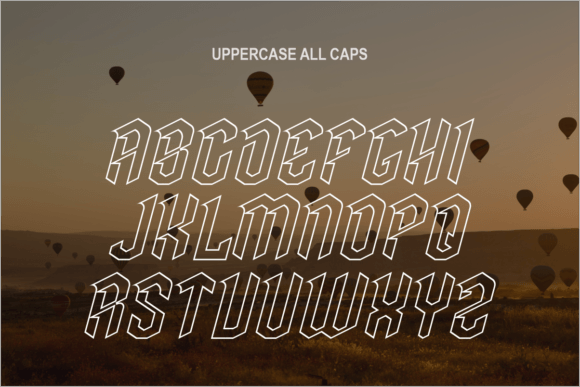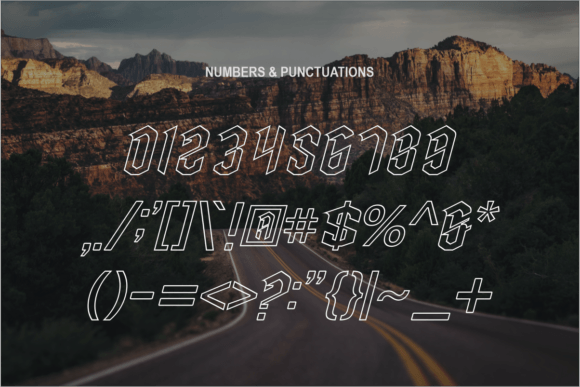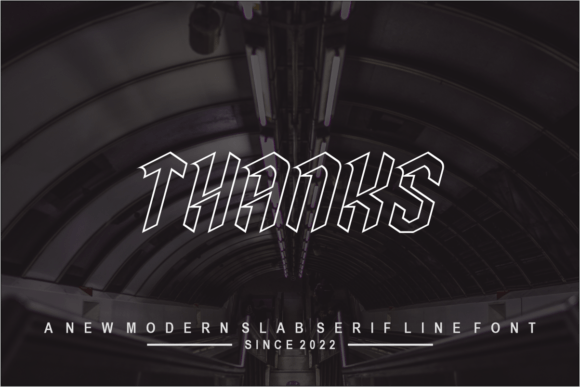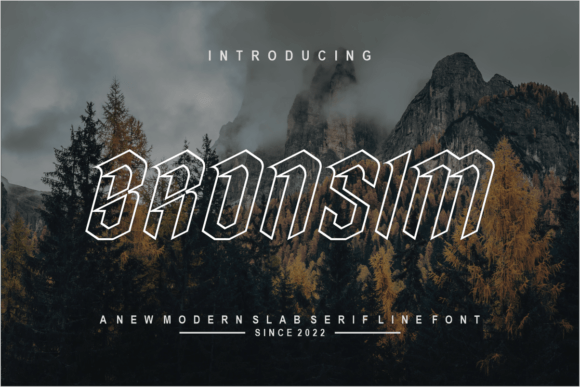
Discover the Elegance of Bronsim Font: Elevate Your Designs with a Sweet and Sophisticated Slab Serif
Are you on the hunt for a font that exudes elegance, sophistication, and a touch of sweetness? Look no further than Bronsim, a stunning slab serif font designed to elevate your projects to new heights. Whether you’re a designer, crafter, or entrepreneur, Bronsim is the perfect addition to your typography arsenal.
What Makes Bronsim Font So Special?
Bronsim is more than just a font – it’s a design statement. With its unique blend of classic and modern elements, this sweet and elegant slab serif font is perfect for a wide range of applications, from logos and branding to quotes, clothing, tote bags, business cards, websites, and so much more.
One of the standout features of Bronsim is its versatility. Its clean lines, subtle curves, and expertly crafted letterforms make it suitable for both digital and print projects. Whether you’re designing a logo for a new business, creating a social media graphic, or crafting a stylish tote bag, Bronsim is the perfect choice.
The Benefits of Using Bronsim Font
So, what are the benefits of using Bronsim font in your designs? Here are just a few:
- Elegance and Sophistication: Bronsim exudes a sense of elegance and sophistication, making it perfect for high-end brands, luxury products, and refined designs.
- Versatility: With its clean lines and classic feel, Bronsim is suitable for a wide range of applications, from logos and branding to quotes, clothing, and more.
- Readability: Bronsim’s expertly crafted letterforms ensure excellent readability, even at small sizes, making it perfect for body text, captions, and more.
- Uniqueness: Bronsim’s unique blend of classic and modern elements sets it apart from other fonts, ensuring your designs stand out from the crowd.
How to Use Bronsim Font in Your Designs
Using Bronsim font in your designs is easy. Here are a few ideas to get you started:
- Logos and Branding: Create a stunning logo for your business or brand with Bronsim’s elegant and sophisticated letterforms.
- Quotes and Typography: Use Bronsim to create beautiful quote graphics, social media posts, and typographic designs that showcase your favorite inspirational quotes.
- Clothing and Accessories: Add a touch of elegance to your clothing and accessory designs with Bronsim’s stylish and versatile font.
- Business Cards and Stationery: Create professional and stylish business cards, letterheads, and other stationery with Bronsim’s classic and sophisticated feel.
- Websites and Digital Design: Use Bronsim to create stunning website headers, titles, and other digital design elements that showcase your brand’s personality and style.
Tips and Tricks for Getting the Most Out of Bronsim Font
Here are a few tips and tricks for getting the most out of Bronsim font:
- Experiment with Font Sizes: Bronsim looks great at a range of font sizes, from small and delicate to large and bold. Experiment with different sizes to find the perfect fit for your design.
- Play with Color: Bronsim’s elegant letterforms look great in a range of colors, from classic black and white to bold and bright hues. Experiment with different colors to find the perfect fit for your design.
- Combine with Other Fonts: Bronsim pairs beautifully with other fonts, from classic serif fonts to modern sans-serif fonts. Experiment with different font combinations to create unique and interesting designs.
In conclusion, Bronsim font is a sweet and elegant slab serif font that’s perfect for designers, crafters, and entrepreneurs looking to elevate their projects to new heights. With its versatility, readability, and unique blend of classic and modern elements, Bronsim is the perfect addition to your typography arsenal.